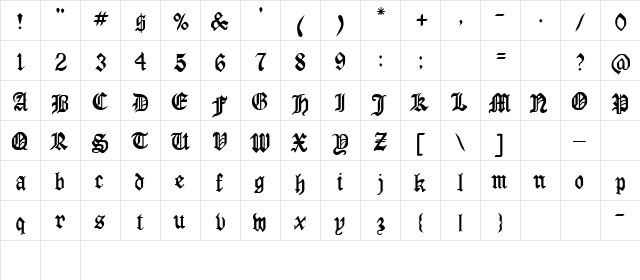
LaserLondon Regular
Design Context for LaserLondon Typeface
LaserLondon is a composed and adaptable typeface that performs quietly and consistently across a wide range of design contexts.